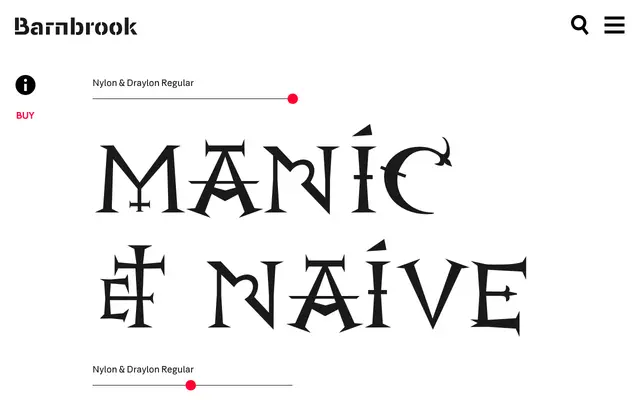
Nylon / Draylon
A paired display family drawing on pre-16th century mediaeval letterforms and 18th century ceramic lettering, both redrawn with deliberate digital crudeness.
Nylon takes its shapes from mediaeval portraits at the National Gallery in London, where classical letterforms have warped into something almost demonic over centuries of reproduction. Draylon is its more composed companion, sourced from 18th century ceramic lettering some 200 years later in stylistic lineage, and the two are designed to be mixed together. Both are drawn with an acknowledged digital awkwardness, treating the computer as a visible part of the making process rather than a neutral tool.
Nylon draws on pre-16th century mediaeval letterforms with deliberately distorted, almost demonic character; Draylon is a more restrained companion based on 18th century ceramic lettering. Both are display faces with an intentionally crude digital quality.